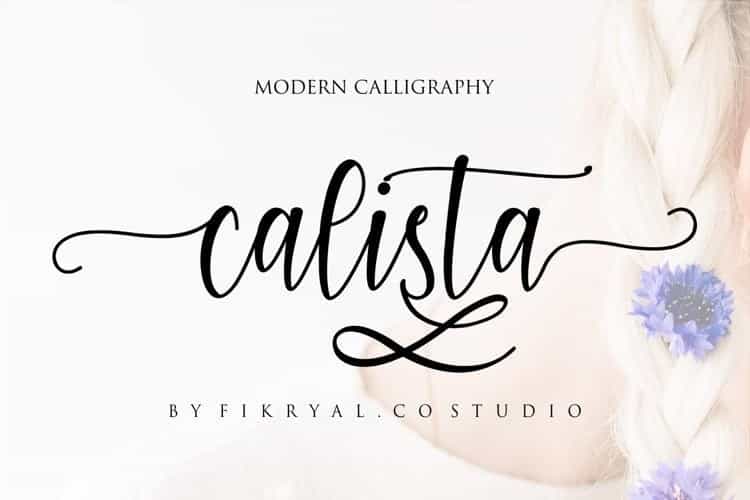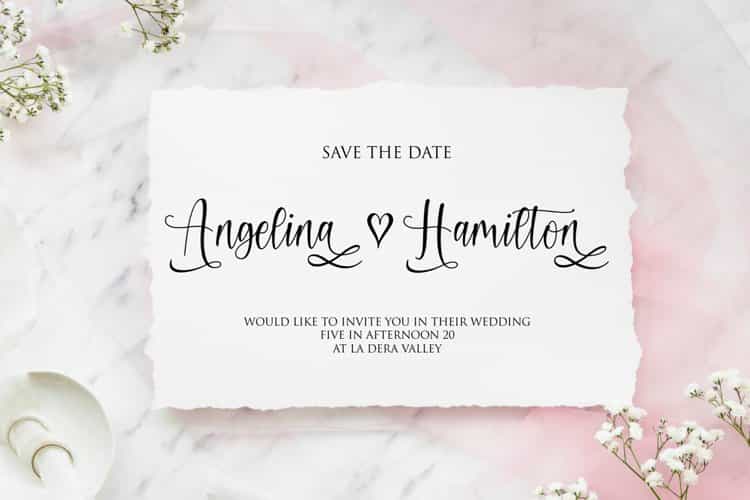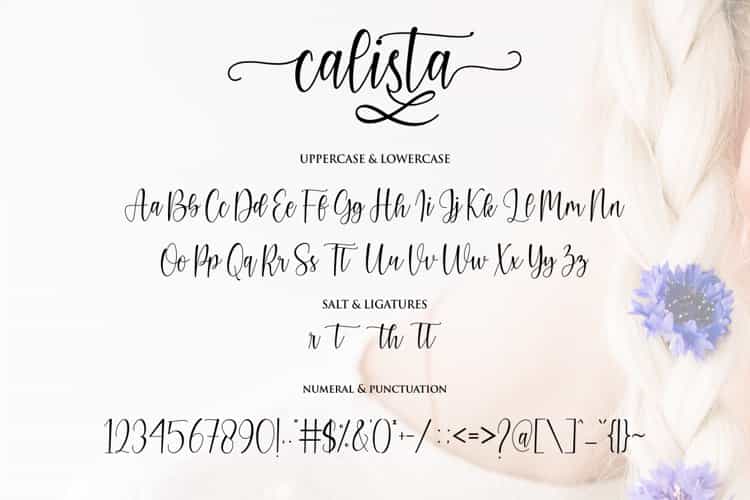
Calista is an elegant and contemporary calligraphy font designed to give your design a fresh and distinctive design. Calista Font is available as one font file that is an array of amazing features.